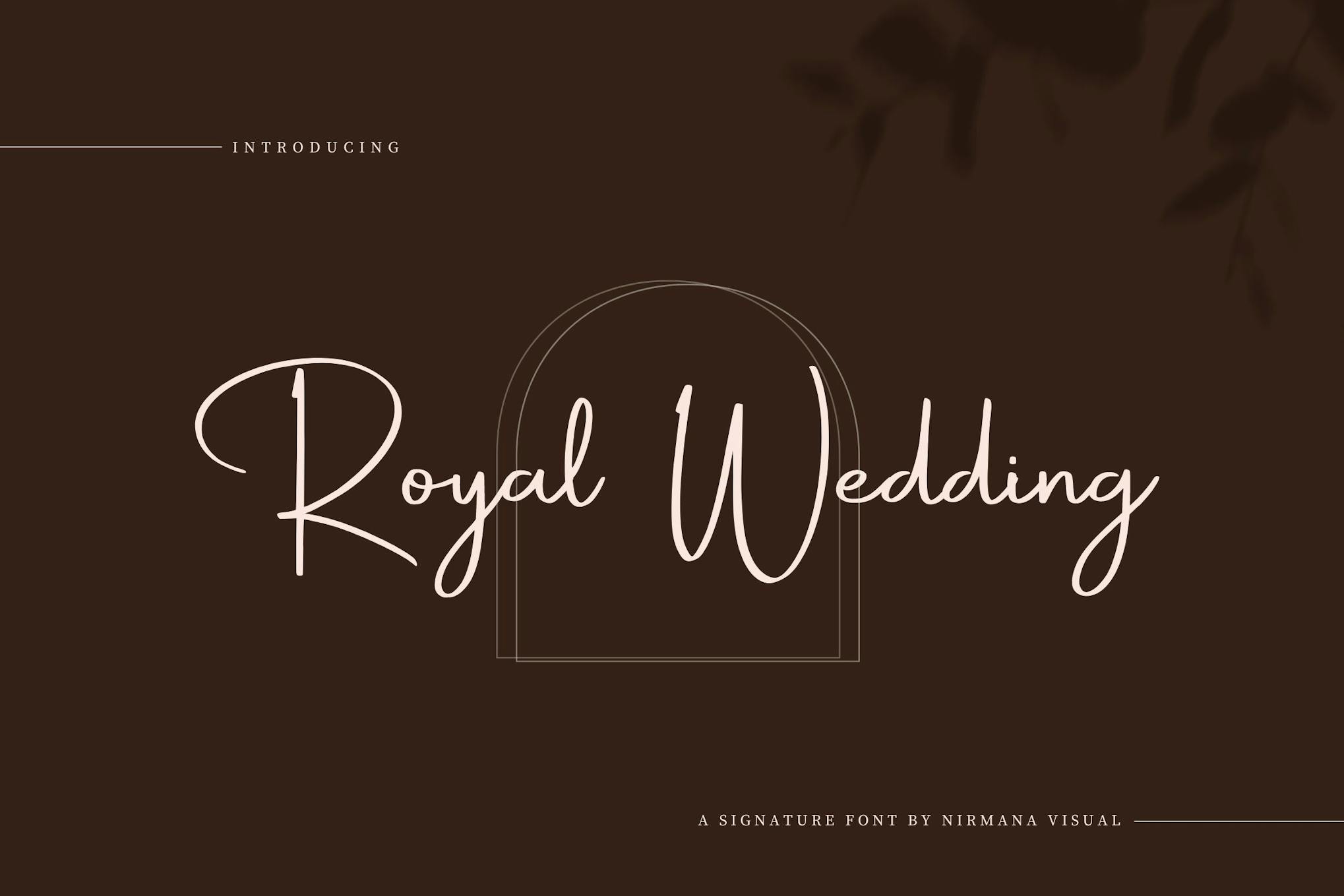
Royal Wedding - Logo Font
The Royal Wedding - Logo Font excels in regal design applications including majestic wedding invitations, royal bridal branding, ceremonial monarchy logos, imperial product packaging, royal business cards, majestic portfolios, royal greeting cards, imperial social media graphics, royal event signage, and ceremonial marketing materials. Its royal script style makes it perfect for projects requiring imperial elegance that communicates majesty and establishes regal brand positioning with audiences seeking royal wedding experiences and imperial sophistication.
What makes the Royal Wedding - Logo Font genuinely exciting is its exceptional ability to capture the imperial grandeur and ceremonial magnificence of royal weddings through majestically crafted letterforms. The font features flowing, regal strokes with imperial flourishes and royal proportions that create a distinctly majestic appearance. Each character displays remarkable attention to royal detail with imperial curves, ceremonial connections, and regal spacing that give text a beautifully majestic, hand-lettered quality. The font's royal character and imperial rhythm create an atmosphere of ceremonial grandeur while maintaining regal sophistication and wedding authenticity.
The Royal Wedding - Logo Font family typically includes regular weight with extensive character coverage, featuring uppercase and lowercase letters, numerals, punctuation marks, and international characters. The typeface often incorporates stylistic alternates, contextual ligatures, and royal swashes that enhance its signature regality. These additional elements provide designers with creative flexibility to customize text appearance and achieve more natural-looking imperial handwriting that reflects the font's royal and ceremonial character.
This majestic signature font distinguishes itself through its remarkable balance of imperial charm and sophisticated elegance. Unlike common or ordinary fonts that lack royal appeal, Royal Wedding - Logo Font embraces the power of regal design to create imperial connections with majestic wedding audiences. The font's royal character makes it essential for luxury wedding planners, regal brands, and imperial celebration businesses where creating majestic wedding experiences and royal memories is fundamental to success in luxury wedding markets.